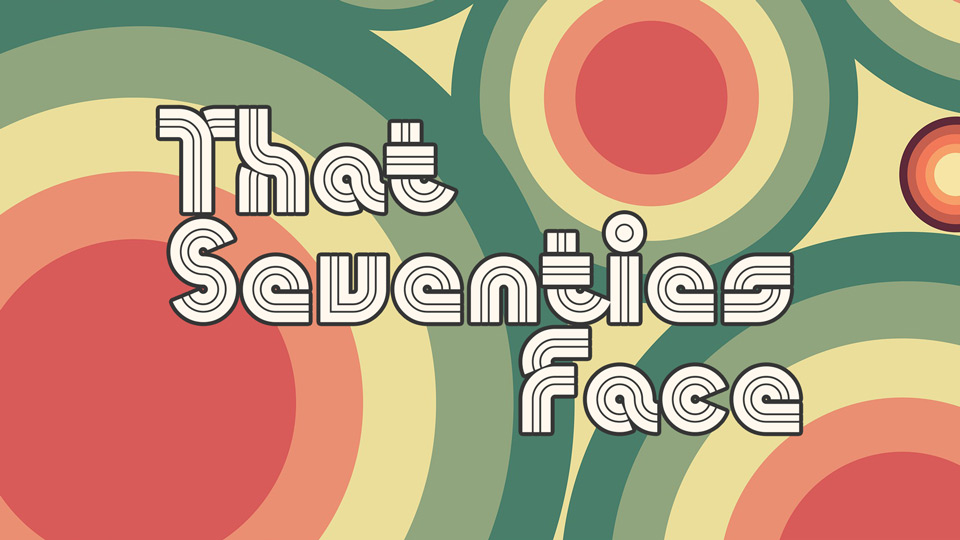
Download That Seventies Face font, a hypnotic, energetic multilinear typeface inspired by retro vibes. That Seventies Face is applicable for any type of graphic design, web, print, motion graphics and perfect for posters and logos.